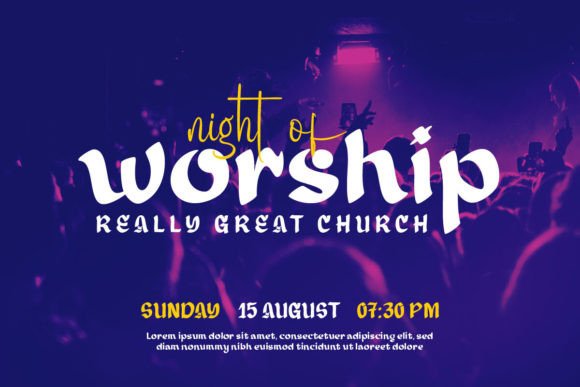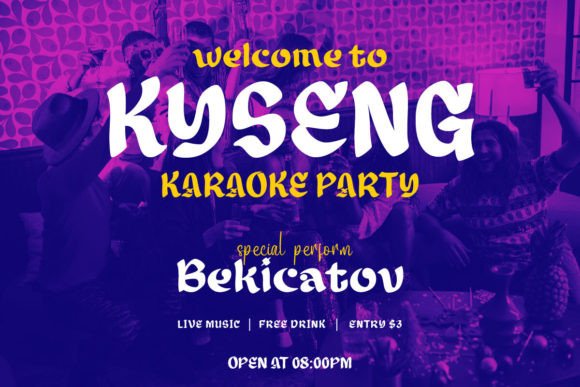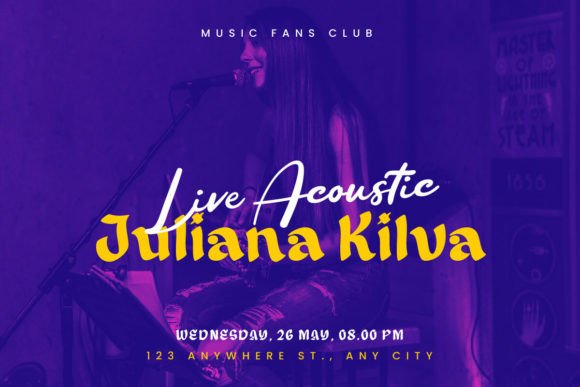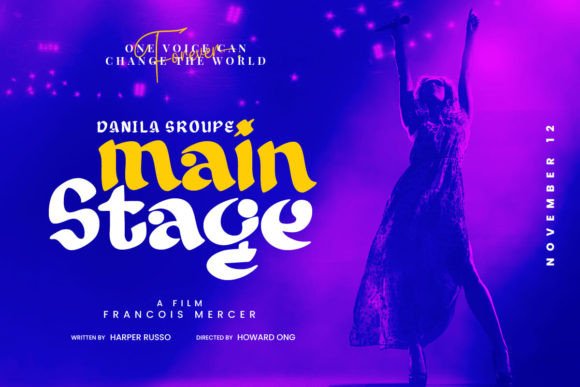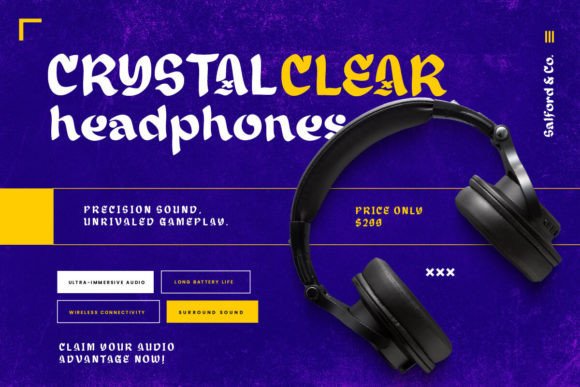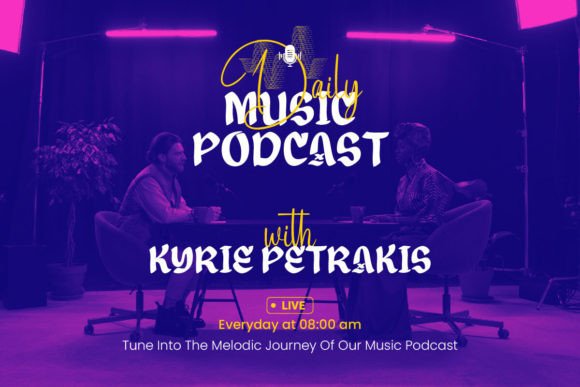
Abisan Bihoc Font: The Ultimate Display Font for Music Lovers
Are you a designer, artist, or musician looking for a font that can capture the essence of music? Look no further than Abisan Bihoc, a display font specifically designed to create immersive musical atmospheres. With its unique and beautiful characters, this font brings a musical feel to your projects, making it the ideal choice for anyone looking to convey deep musical nuances.
The Inspiration Behind Abisan Bihoc
Abisan Bihoc is more than just a font – it’s a visual representation of music. Each letter in this font is carefully crafted to reflect the spirit of music, providing an inspired and electrifying look that’s sure to grab attention. The font’s creator aimed to design a font that would not only be aesthetically pleasing but also evoke the emotions and feelings that music brings.
What Makes Abisan Bihoc Special?
So, what sets Abisan Bihoc apart from other fonts? Here are a few key features that make this font truly special:
• Unique Character Design: Each character in Abisan Bihoc is designed to reflect the spirit of music, making it perfect for projects that require a musical touch.
• Musical Feel: The font’s design brings a musical feel to your projects, making it ideal for album covers, concert posters, and music promotional materials.
• Display Font: Abisan Bihoc is a display font, making it perfect for headlines, titles, and other attention-grabbing elements.
• Immersive Musical Atmospheres: The font is specifically designed to create immersive musical atmospheres, making it perfect for music-related projects.
Perfect for Music-Related Projects
Abisan Bihoc is the perfect choice for any music-related project. Whether you’re designing an album cover, concert poster, or music promotional material, this font provides a unique musical touch that’s sure to impress. The font’s musical feel and unique character design make it an excellent choice for:
• Album covers
• Concert posters
• Music promotional materials
• Music videos
• Live event branding
Why Choose Abisan Bihoc?
With so many fonts available, why choose Abisan Bihoc? Here are a few reasons why this font stands out:
• Unique Design: Abisan Bihoc has a unique design that sets it apart from other fonts.
• Musical Feel: The font’s musical feel makes it perfect for music-related projects.
• High-Quality: Abisan Bihoc is a high-quality font that’s designed to deliver exceptional results.
• Easily Readable: Despite its unique design, Abisan Bihoc is easily readable, making it perfect for headlines and titles.
Abisan Bihoc is a game-changing display font that’s specifically designed to create immersive musical atmospheres. With its unique character design and musical feel, this font is perfect for music-related projects. Whether you’re a designer, artist, or musician, Abisan Bihoc is an excellent choice for anyone looking to convey deep musical nuances. Get Abisan Bihoc Music Display Font now and take your designs to the next level!